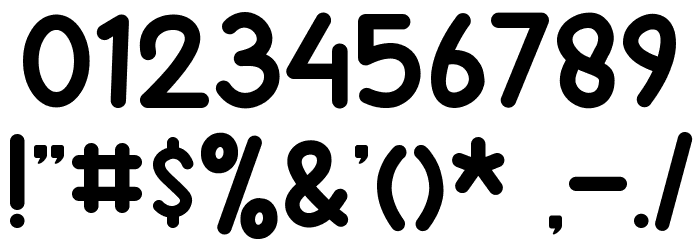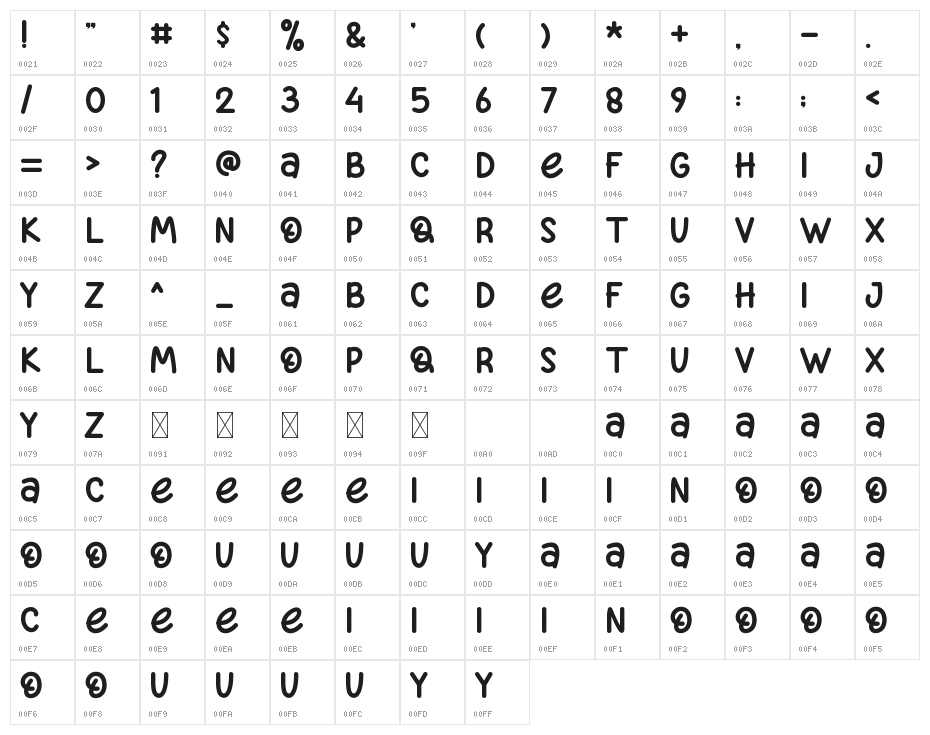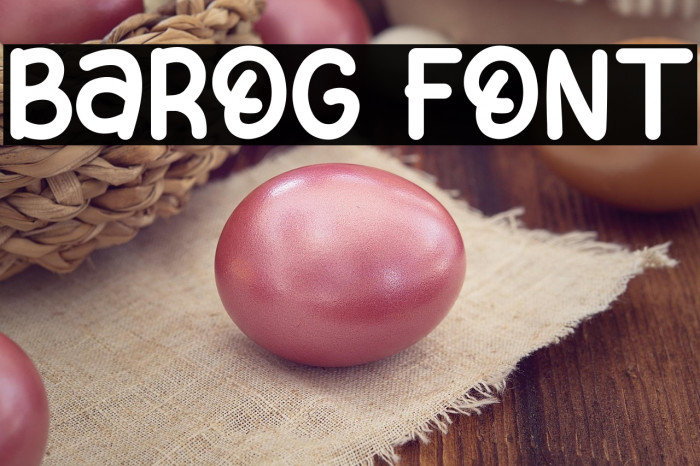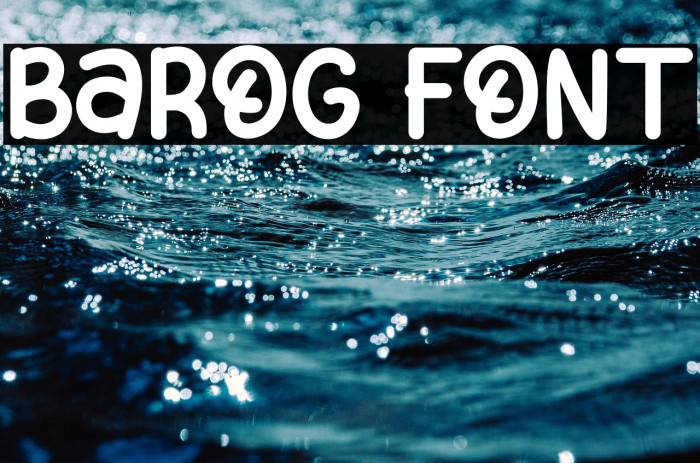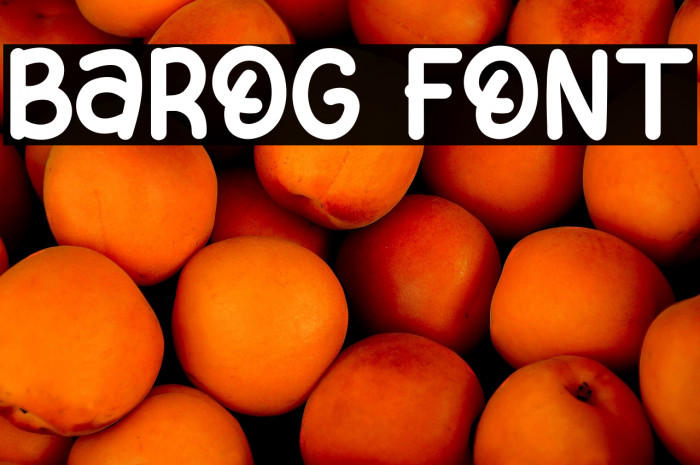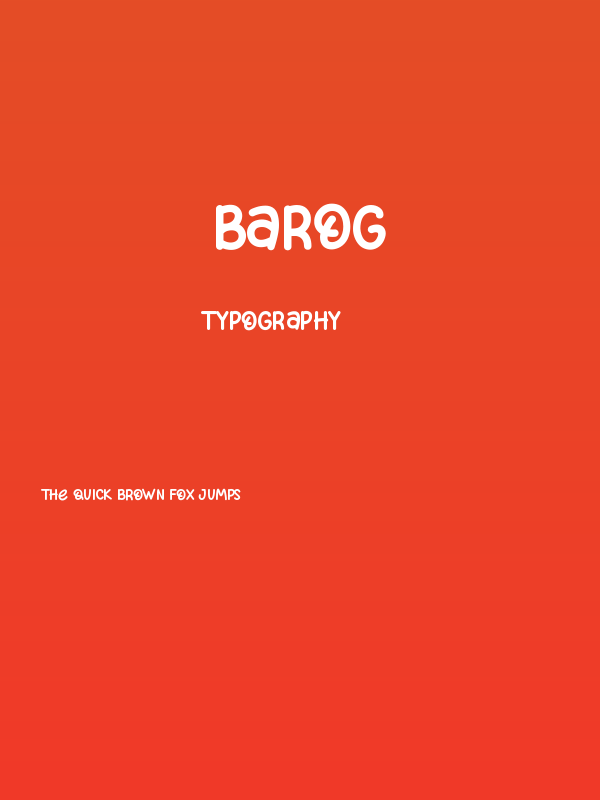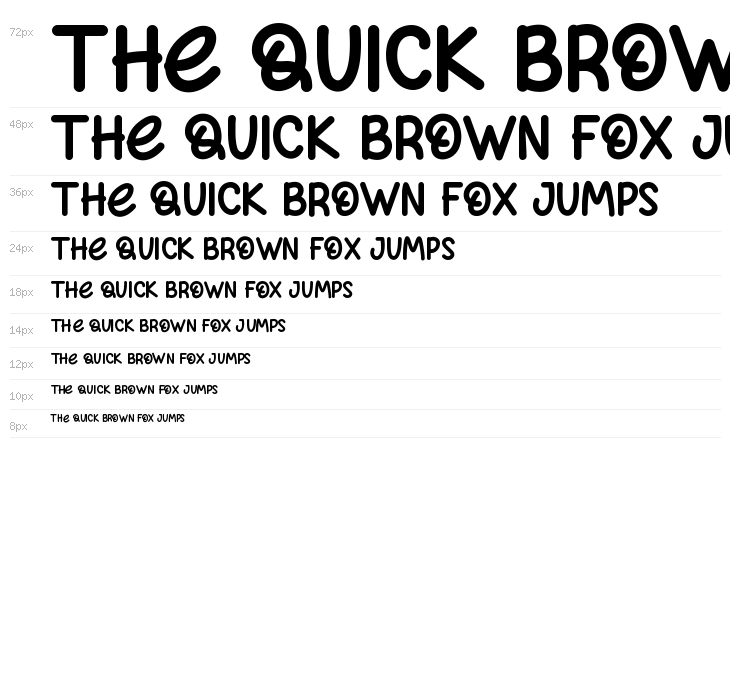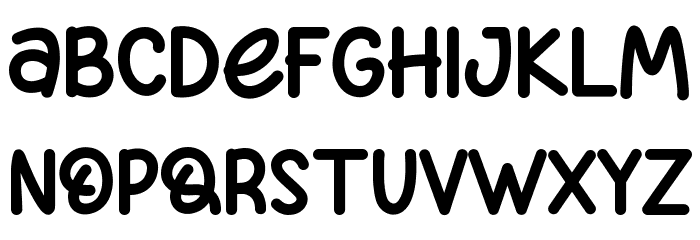
Barog Font
Barog Description
This playful and rounded font exudes a friendly and approachable vibe. The characters are bold and have a consistent thickness, contributing to a uniform appearance. Its rounded edges and smooth curves give it a soft, informal feel, making it ideal for casual or fun projects. The font maintains a consistent baseline, and the spacing between characters is slightly tight, enhancing its compact look. The numerals and special characters are designed to match the playful style of the letters, ensuring a cohesive appearance across all elements.
| Proposed Projects | Ideal for children's books, playful branding, casual invitations, or any project requiring a fun and informal touch. |